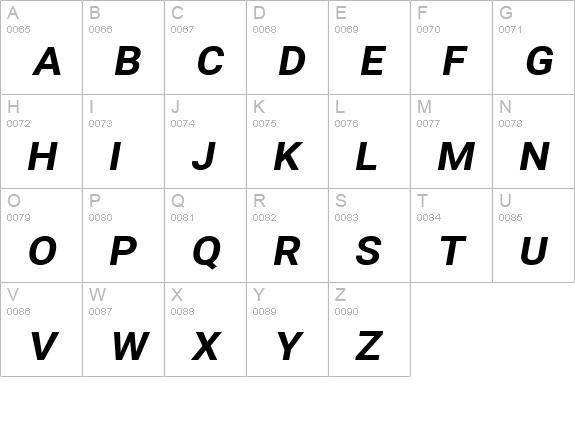
Asimov Wide Italic Font Details
Asimov Wide Italic is a distinctive, extended-width, italic variant in the Asimov typeface family \xE2\x80\x94 well suited to design and typography projects.
Asimov Wide Italic font is a stunning display typeface that effortlessly combines elegance with modernity. With its unique and graceful letterforms, this font adds a touch of sophistication to any design project. The wide and italicized characters of Asimov Wide Italic font create a sense of fluidity and movement, making it perfect for headlines, titles, logos, and branding materials. Its versatility allows it to be used in various creative contexts, from fashion magazines to advertising campaigns. One of the most attractive aspects of Asimov Wide Italic font is that it is completely free to download. This means that designers and enthusiasts alike can access this remarkable typeface without any cost. Thanks to its availability at FontsMarket.com, anyone can easily obtain this font and incorporate it into their designs, unleashing its full potential. Whether you are working on a digital project or print material, Asimov Wide Italic font is sure to make a lasting impression. Its sleek and stylish appearance will captivate audiences and elevate the visual impact of your designs. Embrace the freedom to create with this remarkable font and unlock a world of endless possibilities.